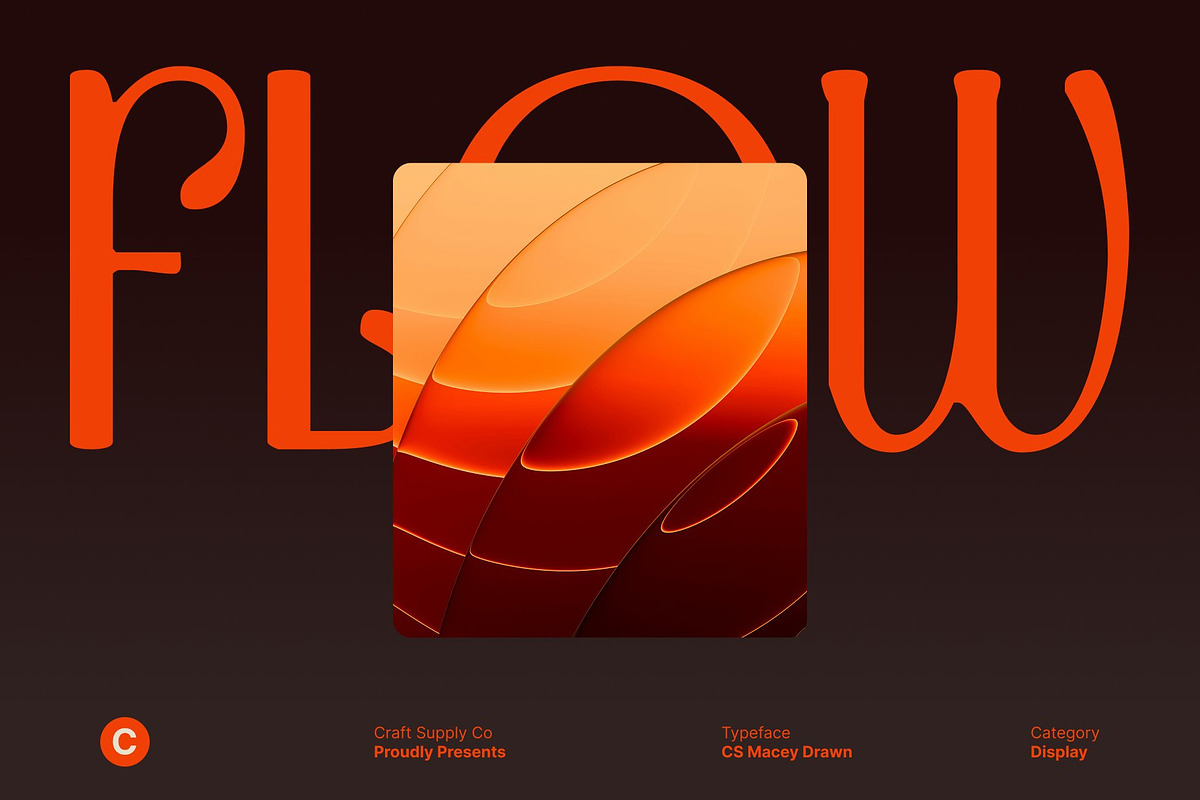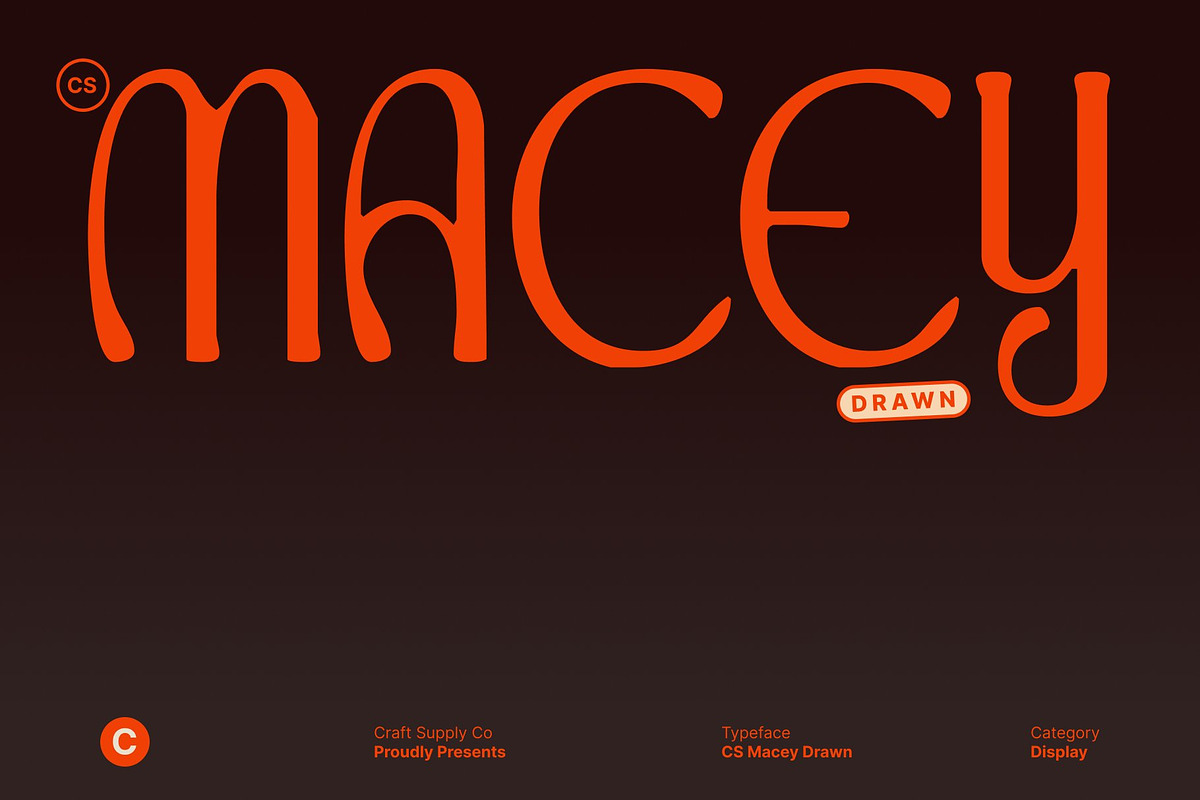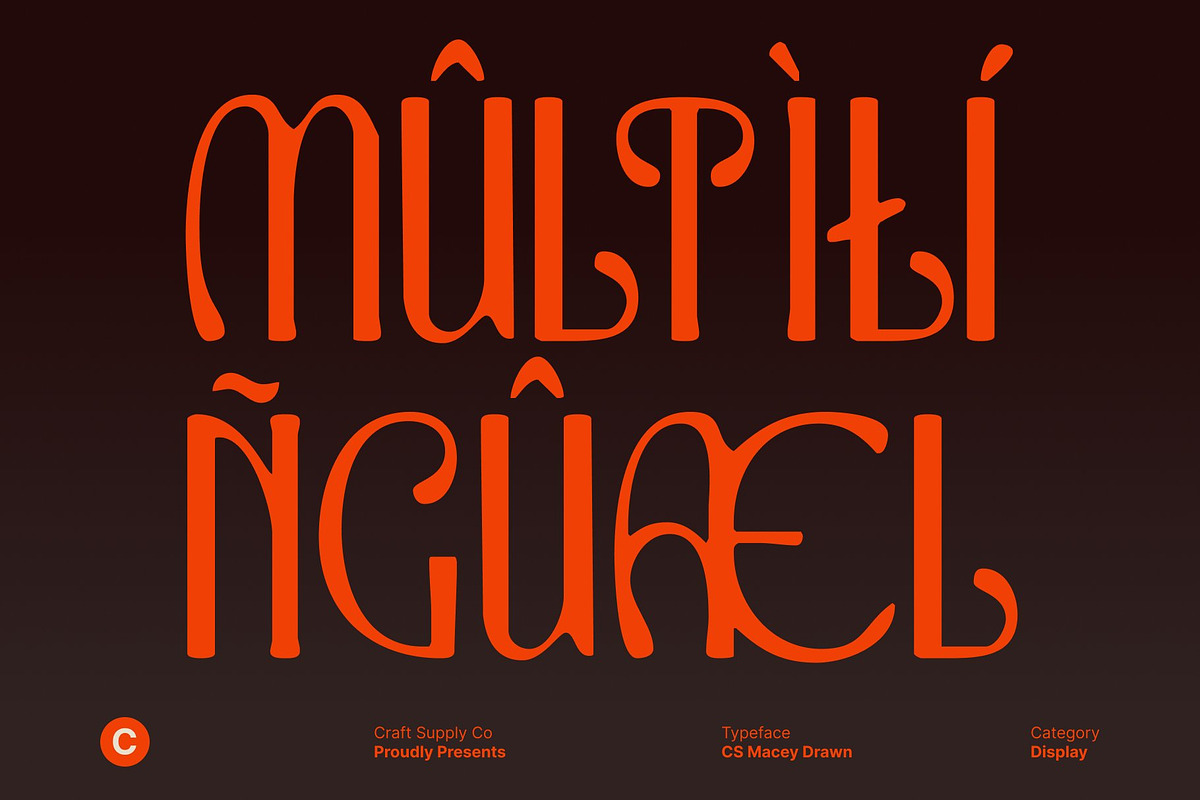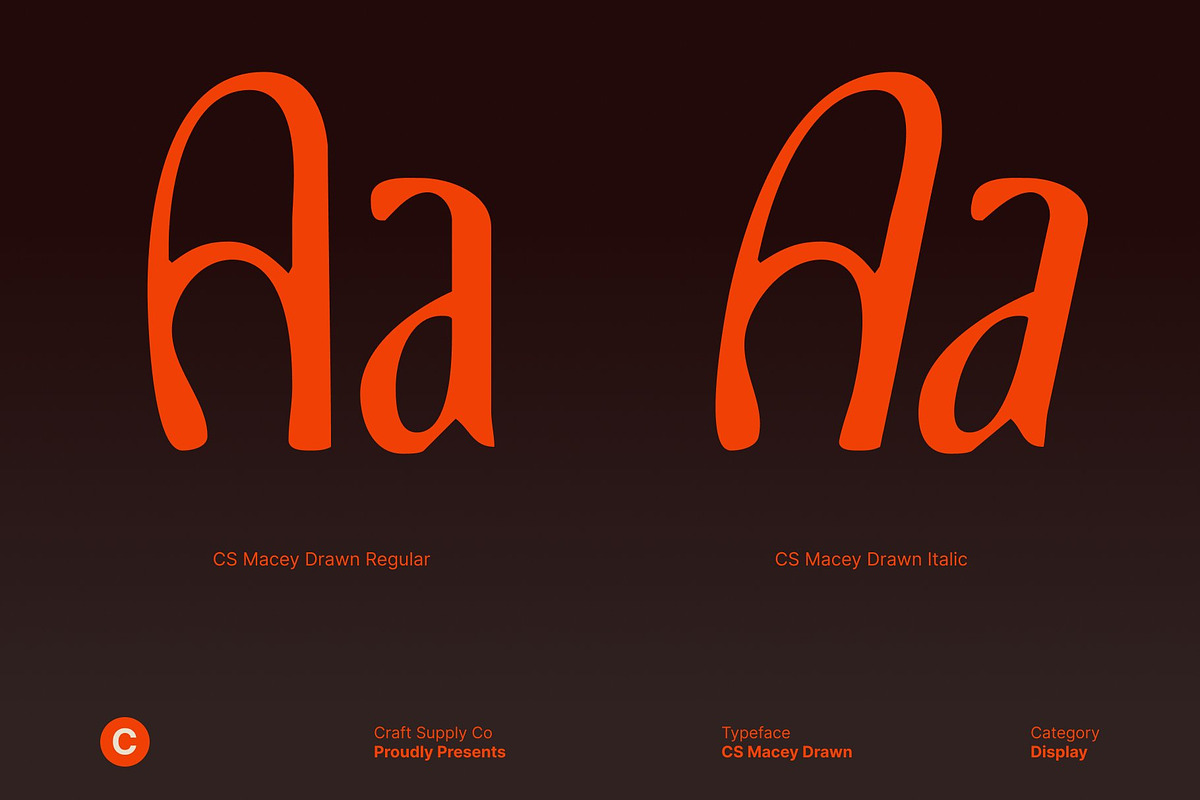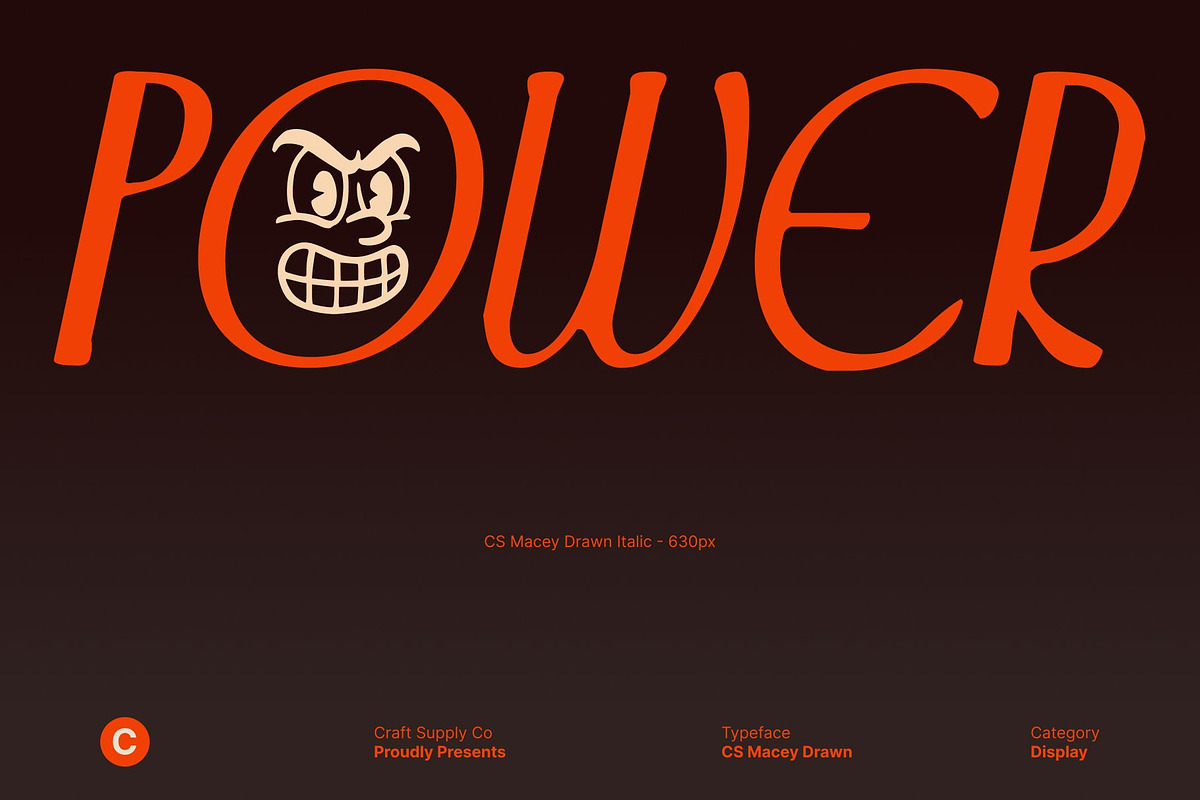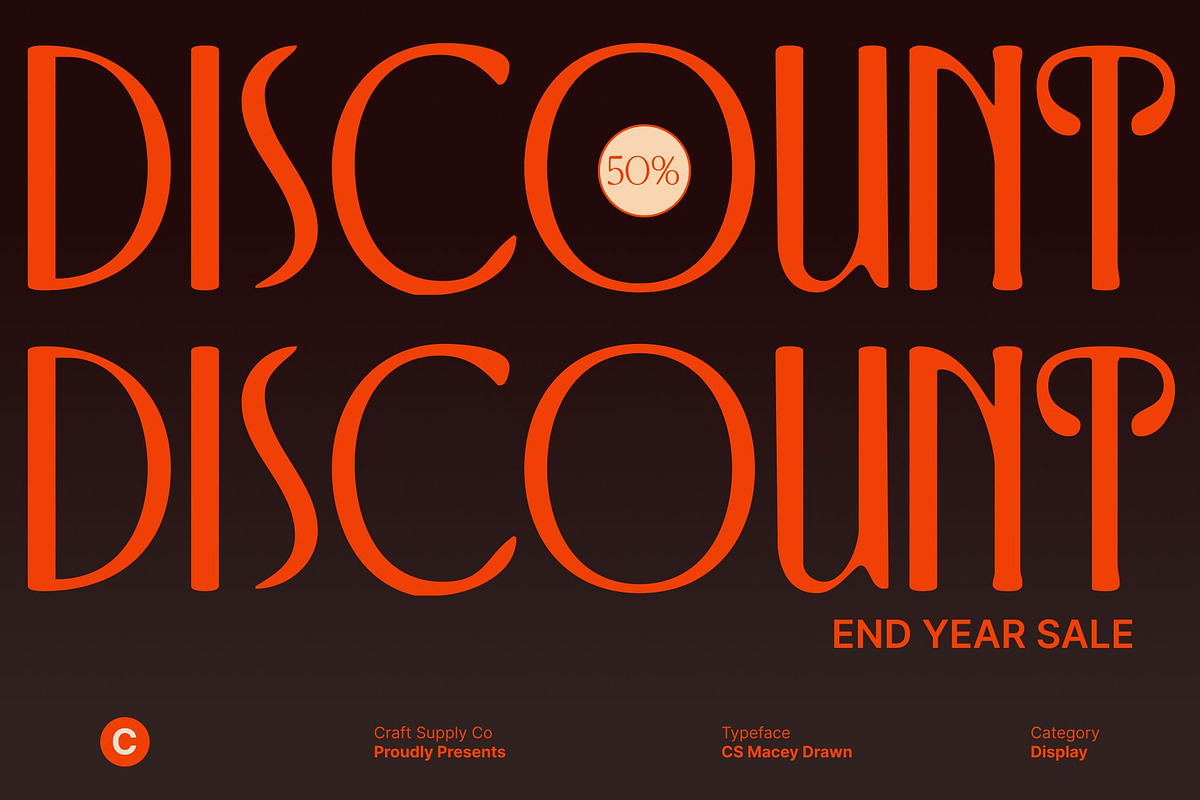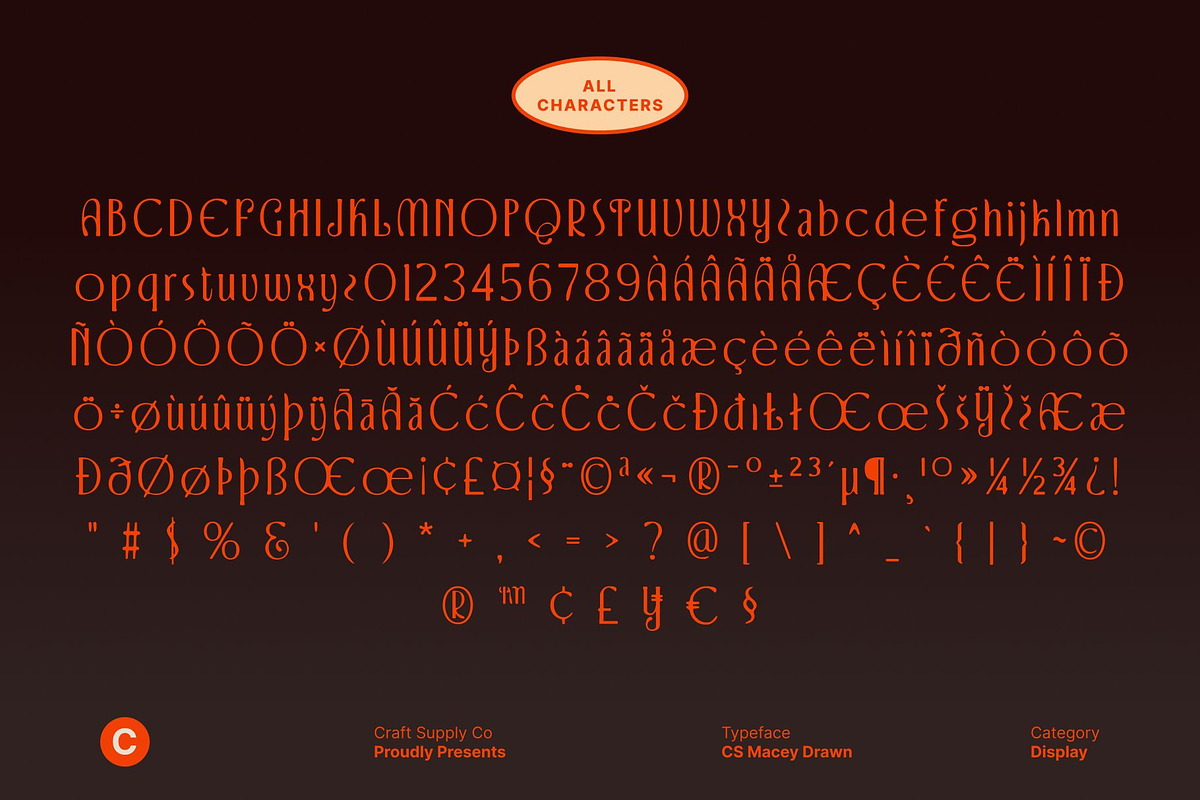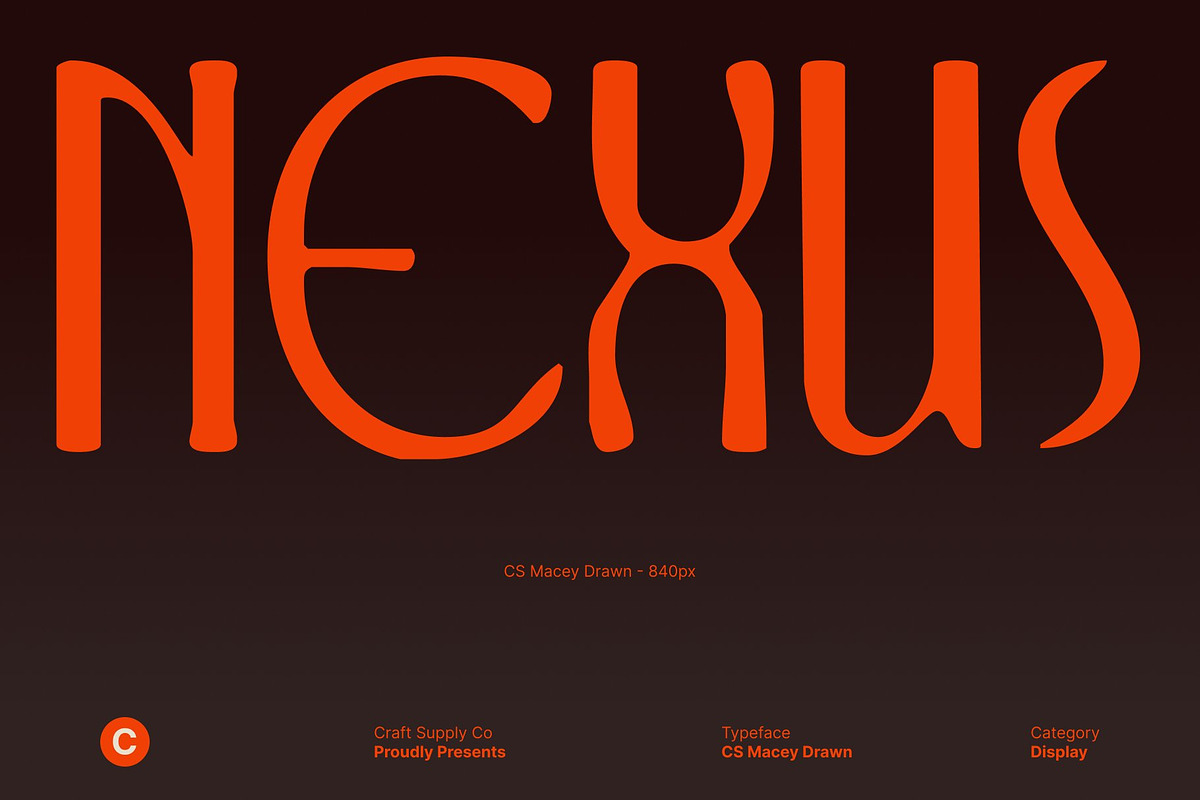
CS Macey Drawn
CS Macey Drawn – Flowing Art Nouveau Elegance with Modern Beauty
Modern Art Nouveau Display Font with Hand-Drawn Organic Grace This is a modern Art Nouveau display font defined by smooth organic lines, graceful movement, and a subtle hand-drawn character. Inspired by the flowing beauty of classic Art Nouveau and reinterpreted through a contemporary lens. The drawn finish adds warmth and individuality, giving the font a soft, artistic feel while remaining refined and stylish.
Elegant Curves with Natural Hand-Drawn Flow The charm of this font lies in its beautifully flowing letterforms and organic curves. Each character is shaped with a natural rhythm, enhanced by gentle drawn textures that soften the structure and create a sense of movement. This hand-crafted flow gives the font a harmonious and graceful appearance, making it expressive without feeling excessive or ornamental.
Artistic Sophistication with a Fresh Modern Touch This font blends decorative Art Nouveau influence with modern balance and clarity. Its artistic curves are paired with contemporary proportions, resulting in a font that feels luxurious, creative, and visually engaging. The drawn effect adds personality and depth, making the typeface feel human, elegant, and thoughtfully crafted.
Perfect for Editorials, Luxury Branding, and Fashion Designed for high-impact and refined applications, ideal for editorials, luxury branding, fashion campaigns, packaging, and premium visual identities. Its elegant display style and hand-drawn sophistication elevate headlines and key visuals with timeless beauty and artistic flair.